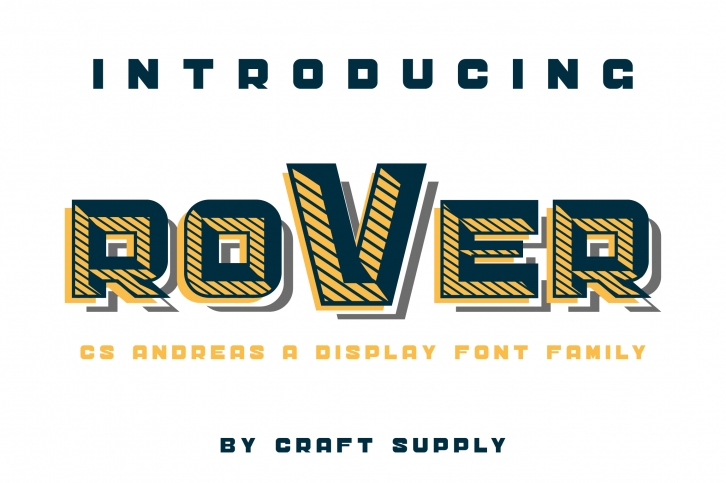
CS Sandreas Family is a trendy and unique font with an authentic style. It was designed by Craft Supply Co. and it's a great choice for creative people who need such a font. It was released on March 22, 2018 and the file size is 21.70 MB. CS Sandreas Family will add an organic vibe to any design idea!